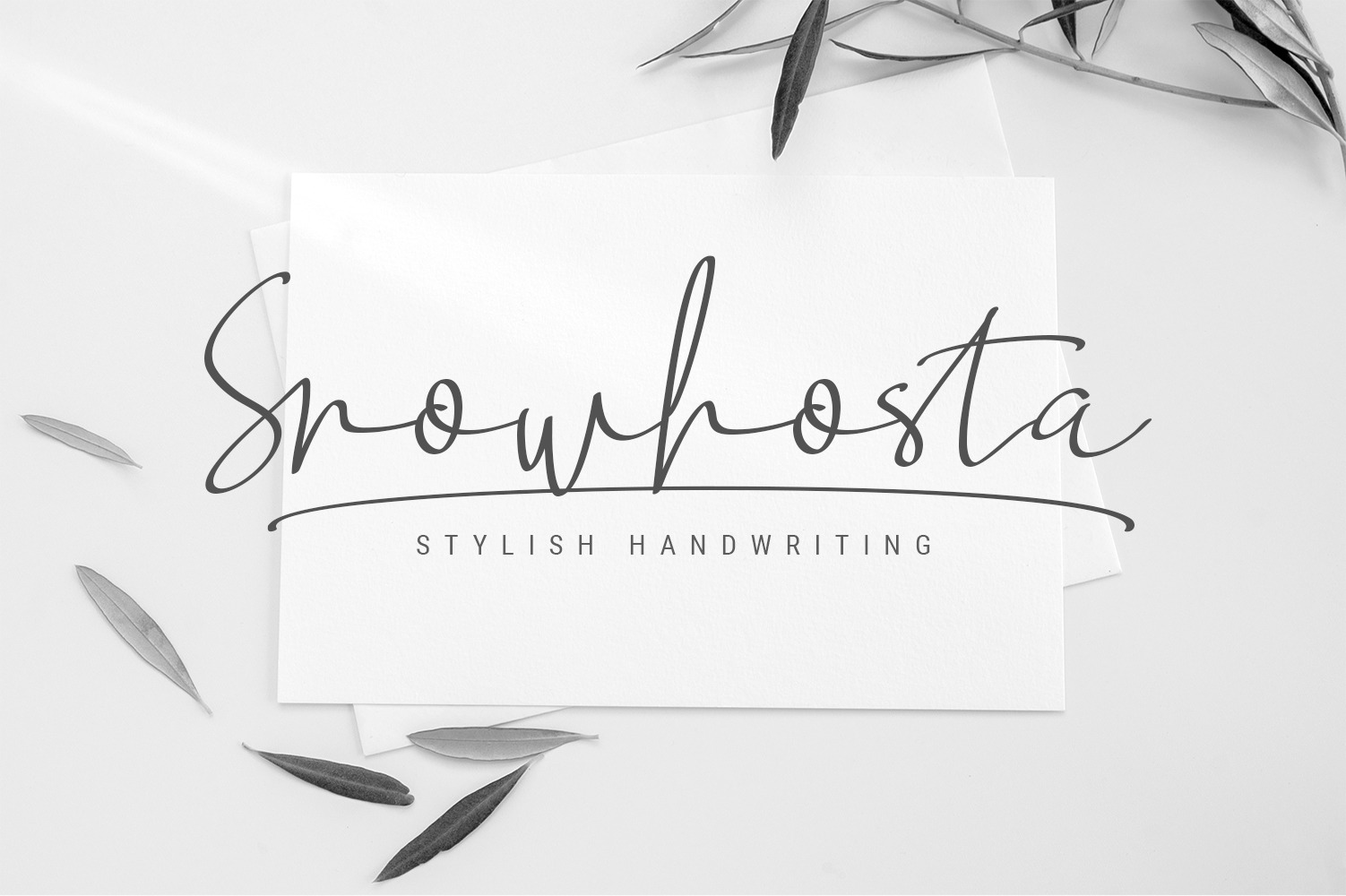
Snowhosta - handwritten script font
Snowhosta is a lovely and timeless handwritten font. Every letter has a unique and beautiful touch, which will make your design come alive. Fall in love with its authentic feel and use it to create gorgeous wedding invitations, beautiful stationary art, eye-catching social media posts, and cute greeting cards. This gorgeous font includes all lowercase and uppercase characters, numbers, punctuation, an array of standard ligatures and a selection of international characters as well (please type in the preview below to see if I have what you need!) This font is PUA encoded which means you can access all of the glyphs and swashes with ease!